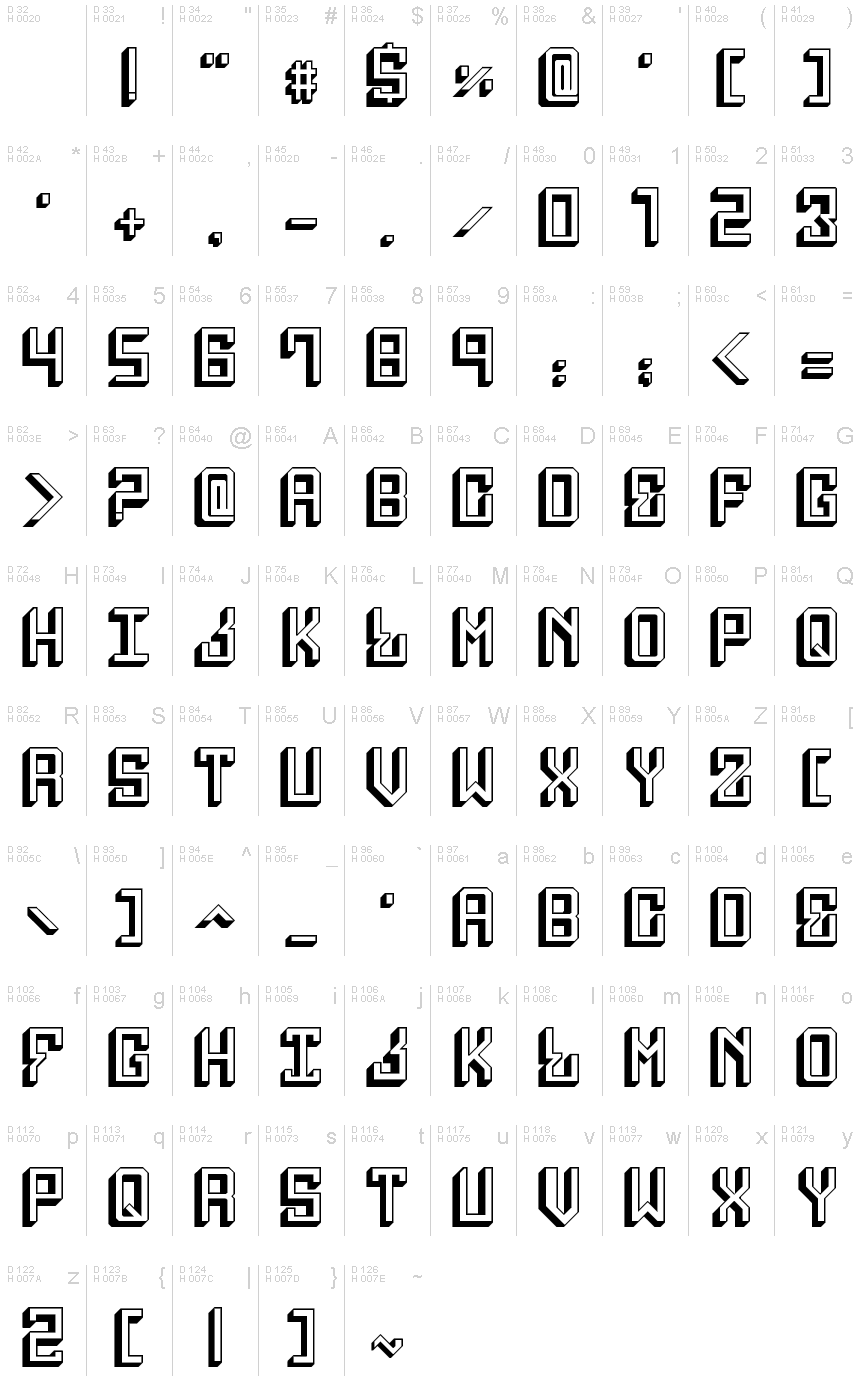
LOSANGELES1 Regular
“VALLEY818, which is based on “EGOTHIC
“LOSANGELES1” was built with FontStruct
Designer description: LosAngeles001. First font by TodayLA Studios. Inspired by graff and sci-fi.